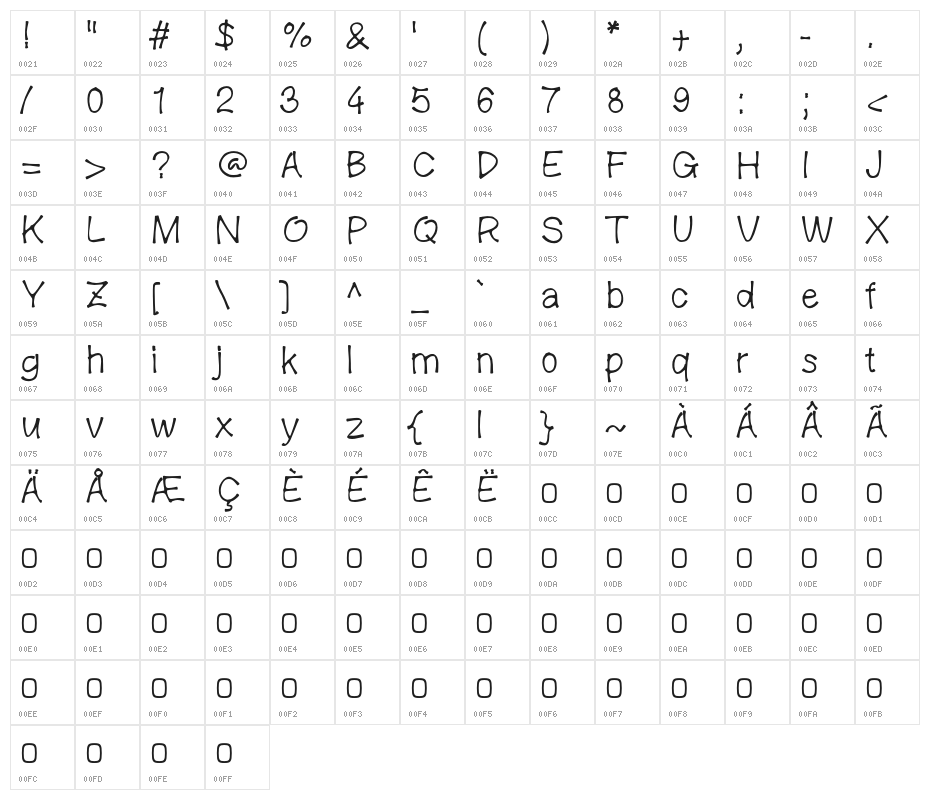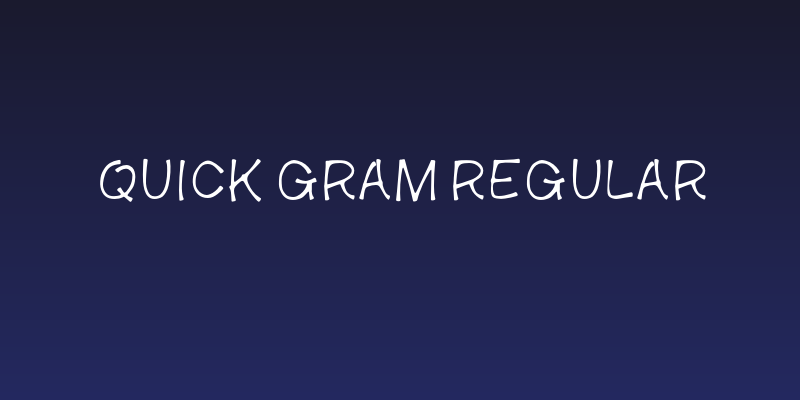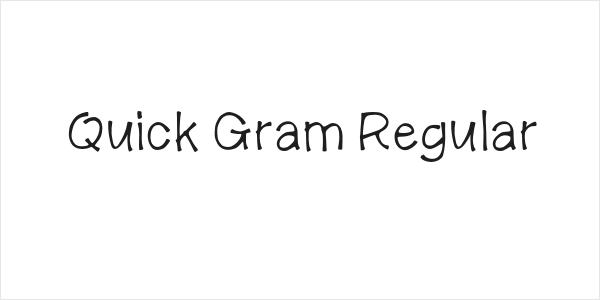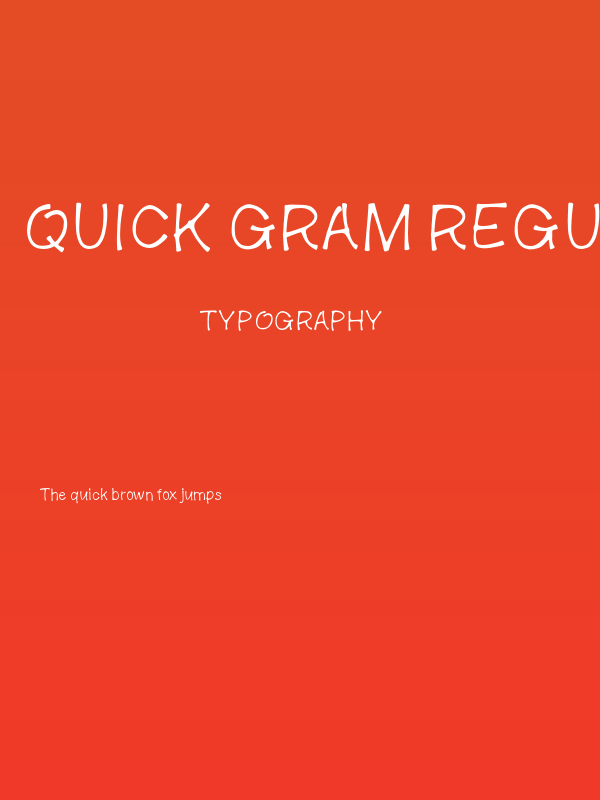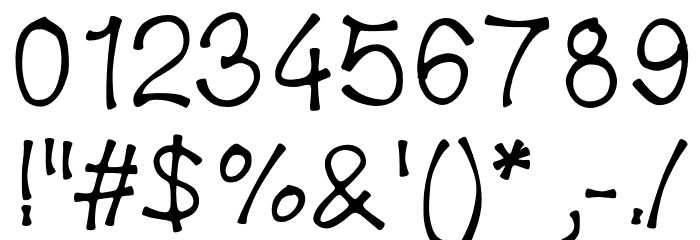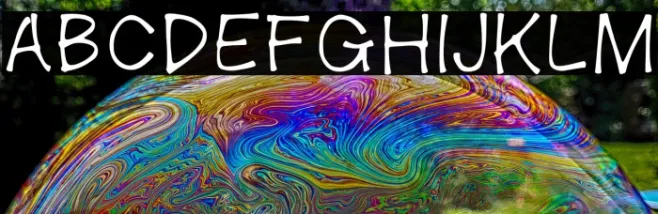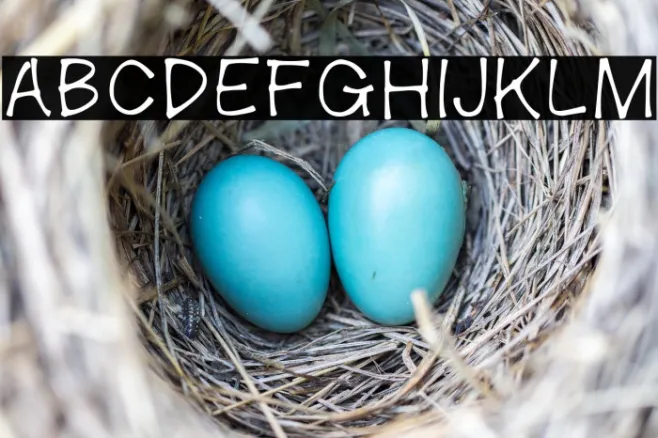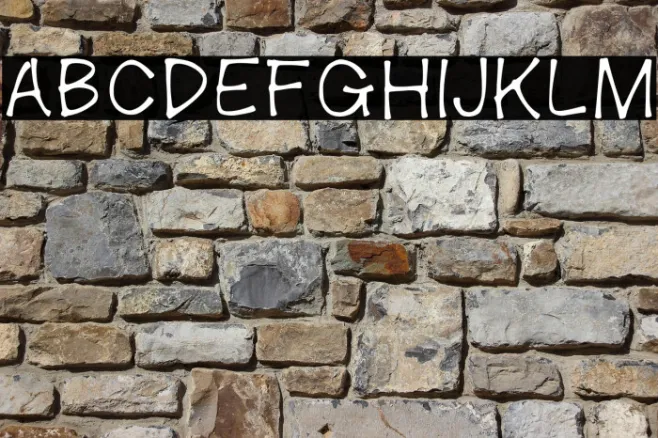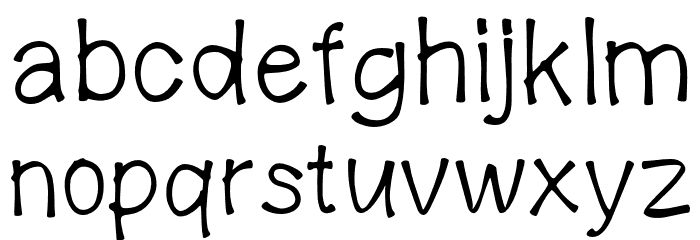
Quick Gram Regular Font
Quick Gram Regular Description
This font features a playful and informal handwritten style, characterized by its irregular and slightly whimsical letterforms. The strokes are uneven, giving it a casual and approachable feel. The uppercase and lowercase letters maintain a consistent style, with rounded edges and a slight tilt that adds to its charm. The numerals and special characters follow the same informal aesthetic, making it versatile for various creative projects. The font's unique personality makes it suitable for designs that aim to convey friendliness and creativity.
| Use Case | Logos, Invitations, Creative projects |
| Proposed Projects | Ideal for greeting cards, children's books, casual invitations, and creative branding. |